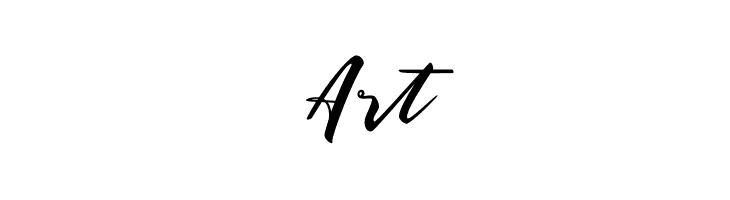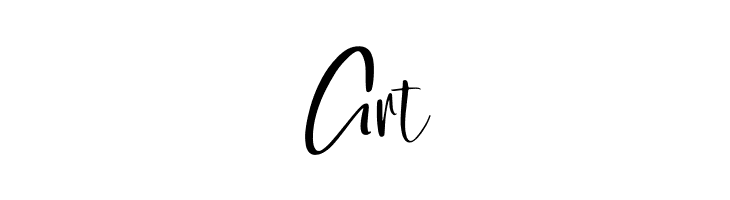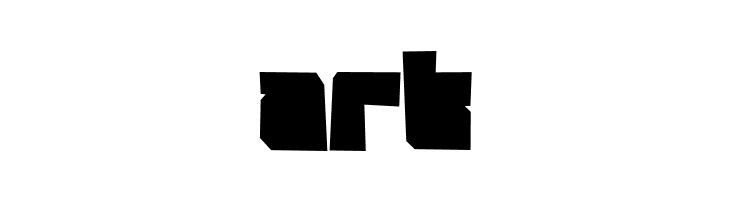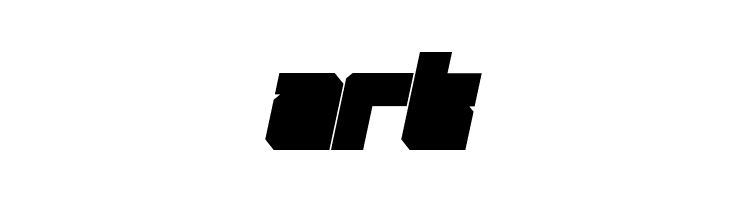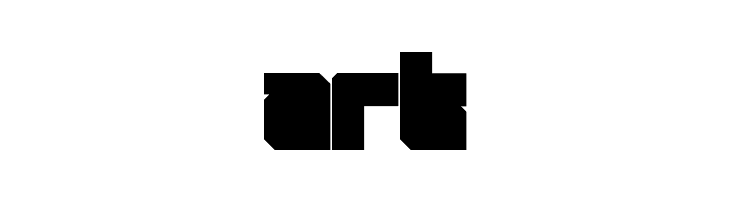
A modern, cursive script font with bold, flowing strokes and elegant connections.
A flowing, cursive script font with elegant, interconnected characters.
A classic serif font with an artistic, hand-drawn quality.
A sophisticated and flowing script font with a handwritten appearance.
A dynamic, fluid script font with an elegant handwritten style.
An elegant, flowing script font with high contrast and sophisticated style.
A graceful script font with flowing, interconnected characters and elegant flourishes.
A bold, geometric font with a blocky, industrial style.
A bold, geometric, and italic font with a modern, edgy style.
A bold, geometric font with blocky, angular letterforms.